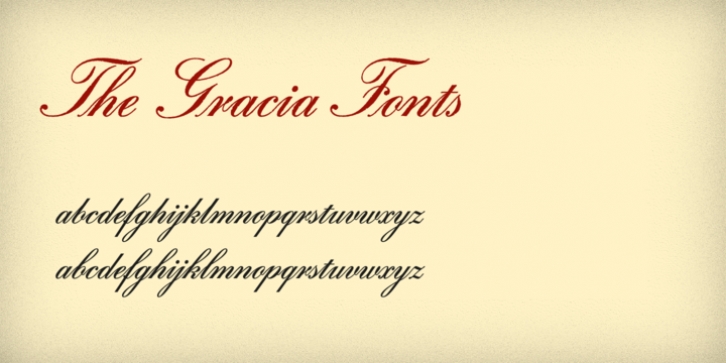
Gracia Series 40 was designed by Andreas Seidel and published by astype. Gracia Series 40 contains 4 styles and family package options.
Gracia is a classic connected script design.
OpenType features:
- over 700 glyphs
- central European faces
- connection forms & stylistic alternates
- proportional, mediaeval numerals & Roman numerals
- numerators, denominators and fractions